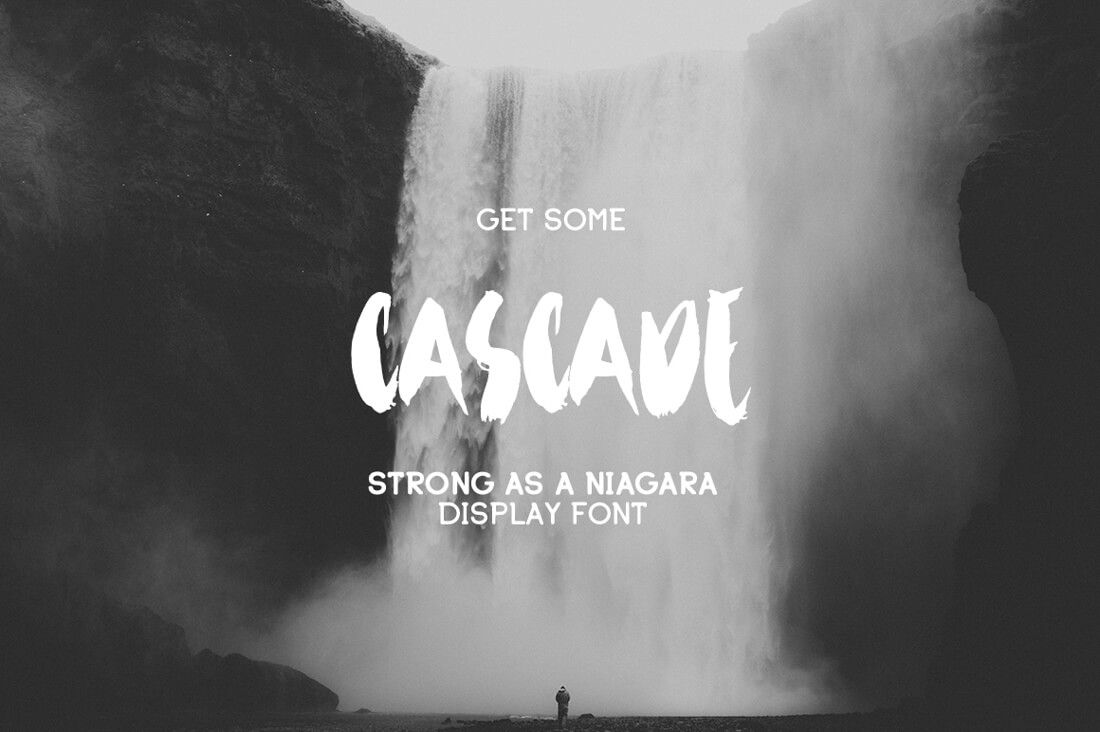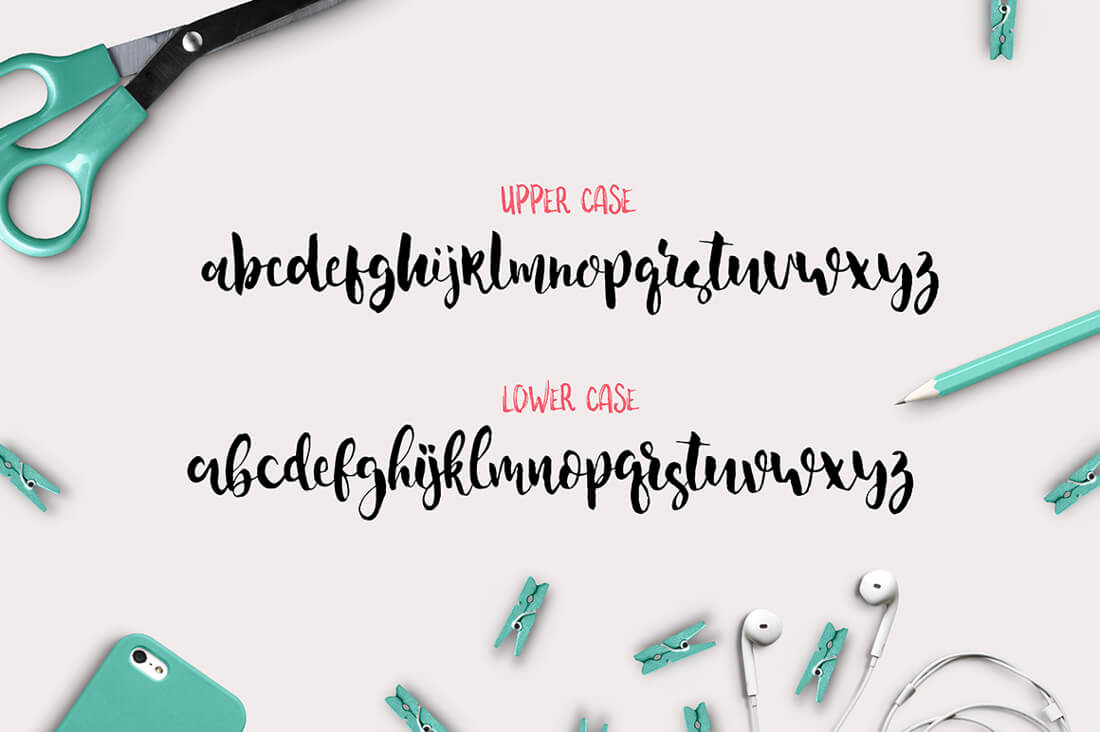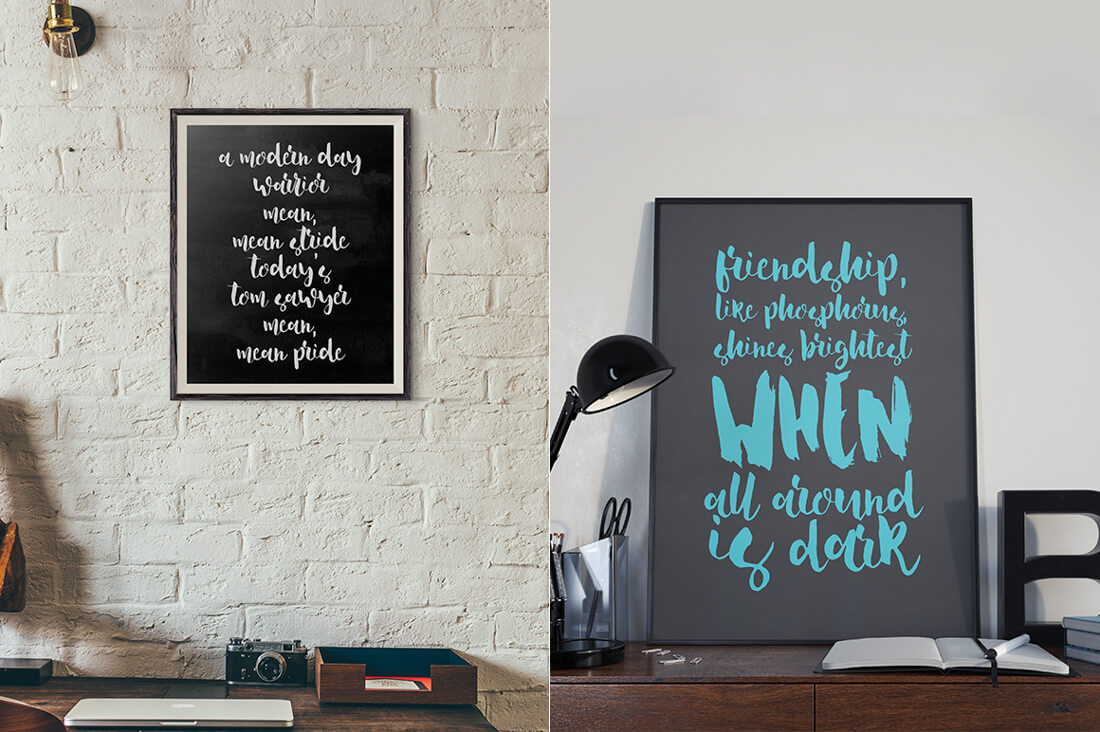
In need of a little romance in your life? Or at least in your fonts? Your search is over, thanks to this Sweet Mighty Deal from MediaLab Studio! You'll get 20 beautiful handlettered script and display fonts to use on anything from logos to wedding invitations to tote bags. Besides multiple styles and various OpenType Features, these fonts all feature an Extended License to give you total freedom with your designs.
Highlights:
- Give your typeface toolbox a sweet reward with this fabulous collection of 20 handlettered fonts from MediaLab Studio.
- Your collection includes a great variety of script and display fonts.
- This Sweet Set is perfectly suitable for designing all sorts of projects such as: logos, wedding invitations, greeting cards, mugs, tote bags, T-shirts, prints and more.
- Add a real natural and unique touch to your artwork with these handlettered and handpainted fonts.
- Some fonts even include multiple styles, ligatures, multi-lingual support, stylistic alternates, and more.
- Specifically, this Sweet Bundle includes the following 20 typefaces: Anemone, Begonia, Beverly, Breathe, Cascade, Dreamboat, Evergreen, Foliage, Honeyflower, Juliasdream, Lovehearts, Melissa, Peppermint, Seashore Simpleton,Something Wild, Starshine, Summertime, Sweethearts, Wachtower Duo.